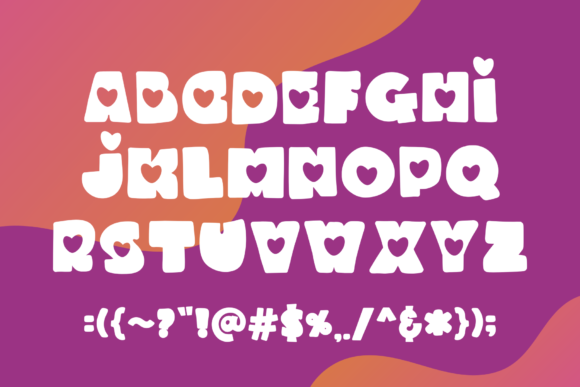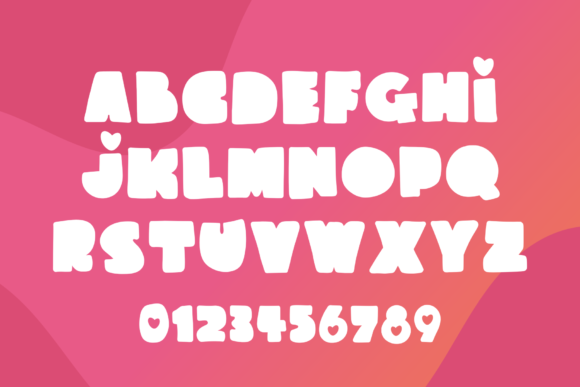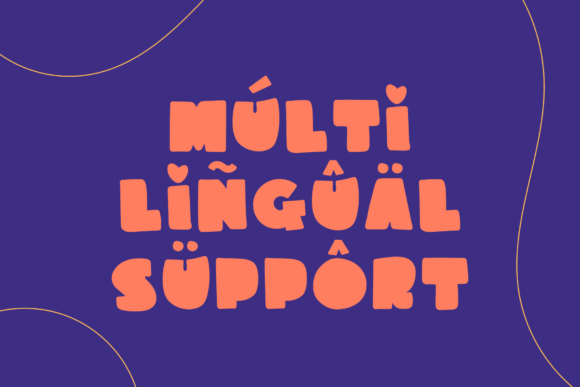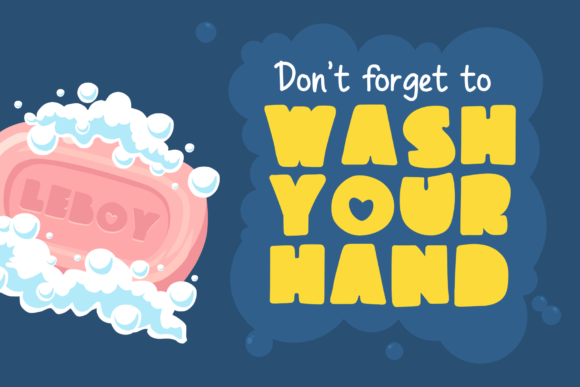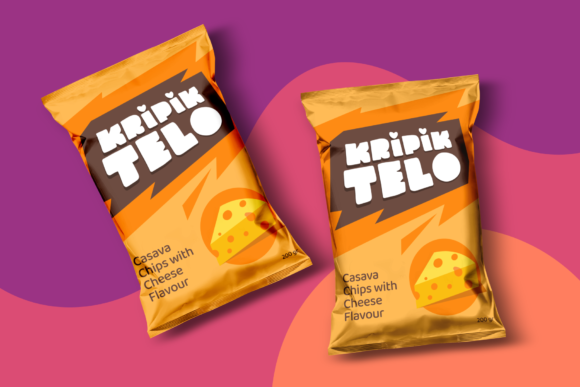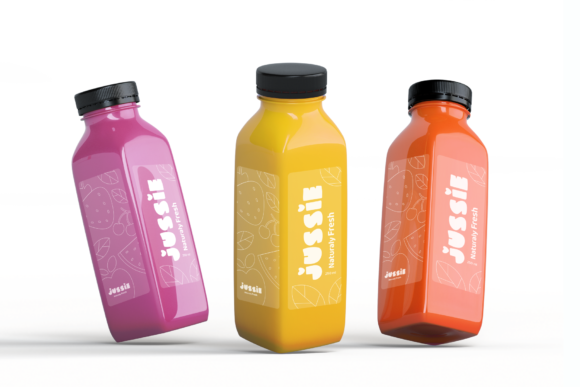
Introduction to Misro Font Font
Fonts play a crucial role in design, and the Misro Font font is a typeface that brings both character and versatility to any project. Whether you’re working on a branding project, a website, or a print design, the Misro Font font offers a unique style that can elevate your work.
Misro is a cute and thick lettered display font.
This dazzling cartoon like font will turn any creative idea into a standout .
Key Features of Misro Font Font
Why Choose Misro Font Font?
The Misro Font font is more than just a typeface – it’s a design tool that helps you communicate your message with style and clarity. Its unique character set and versatile design make it suitable for a wide range of applications, from elegant invitations to bold headlines.
With its carefully crafted letterforms and balanced proportions, the Misro Font font ensures readability and visual appeal across all mediums.
What makes Misro Font font special?
The Misro Font font stands out with its unique design, exceptional readability, and versatility across various design applications.